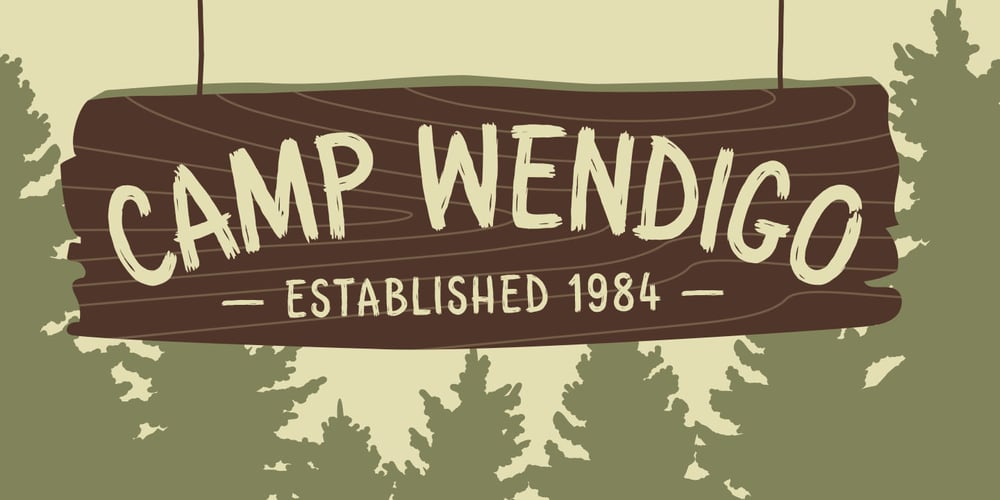
Camp Wendigo Font Family was designed by Ming Ong and published by Dear Sue. Camp Wendigo contains 1 styles and family package options. Camp Wendigo is a textured, hand-painted brush display font inspired by national parks, and camping in the great outdoors. Explore your logo designs, school displays, posters, signs, inspirational quotes, merch and packaging with these fun, woodsy letters! Caps Only Fonts.